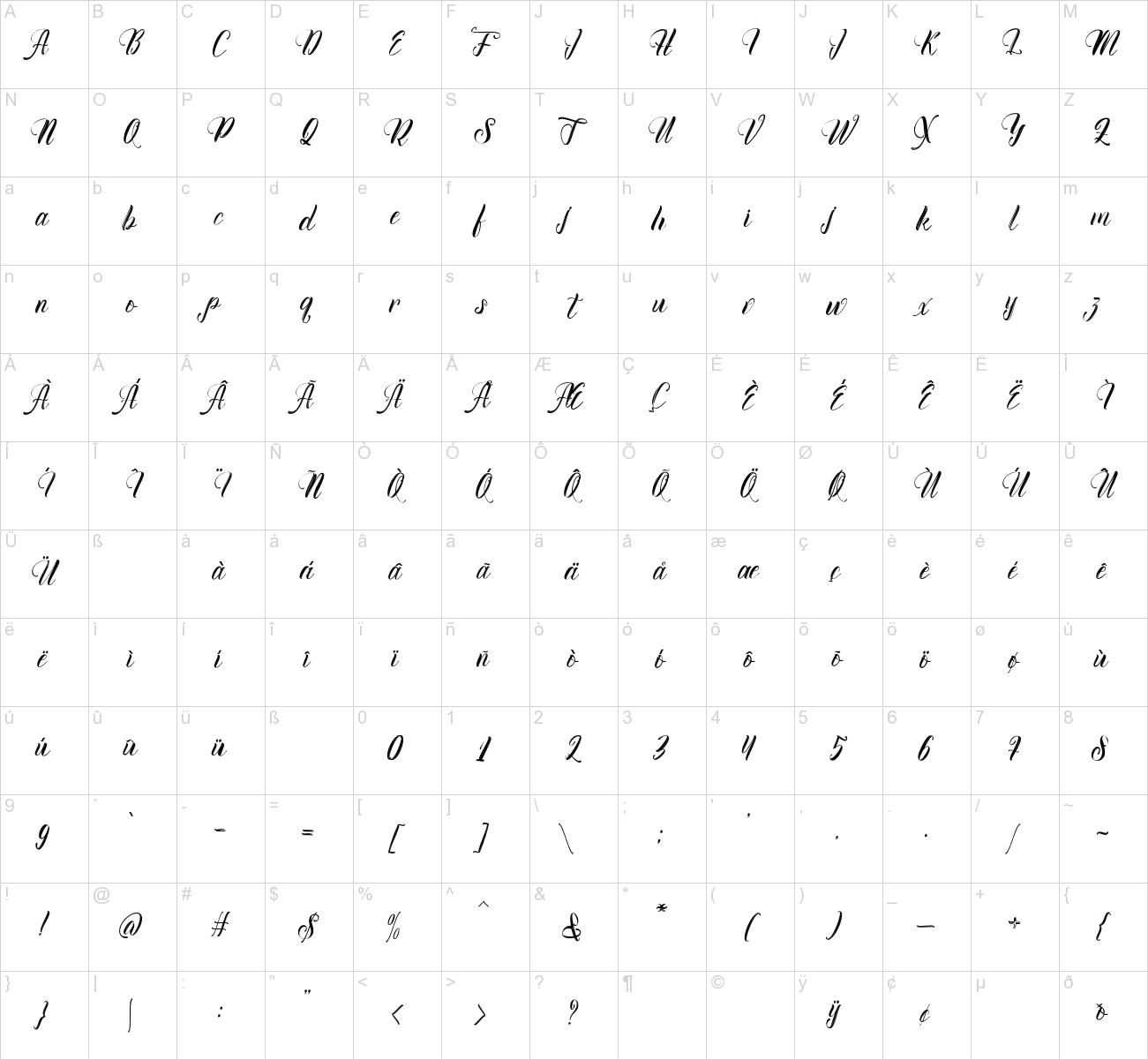
Rosvigts Brush Script Font
Rosvigts Script – Formed from a soft bristle brush. Modern classic typeface with a touch of elegance. and slicked neatly so it looks like a calligraphy typeface. which looks unique and some extra style different from other alphabets.
Classification: | Calligraphy, Script |